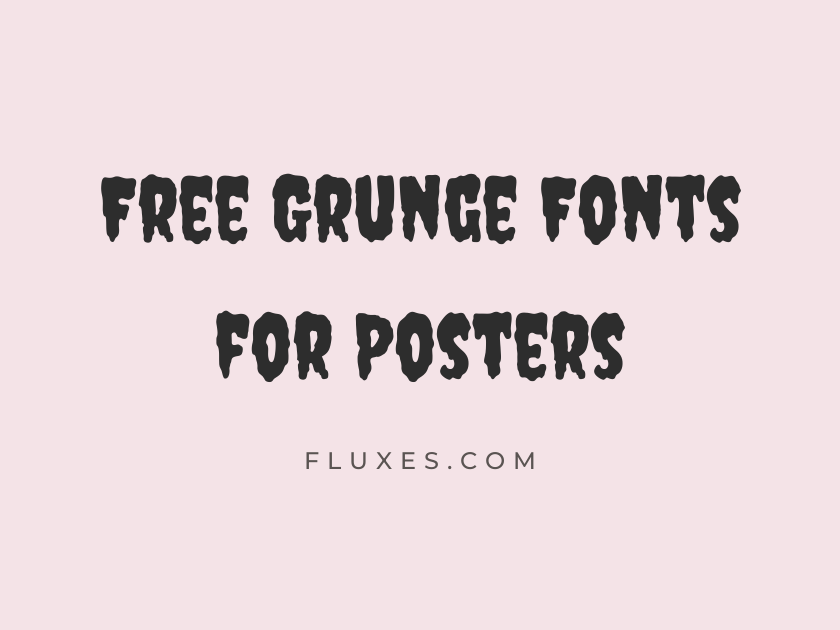
53 Best Free Grunge Fonts for Posters
Grunge fonts turn a flat poster into something that looks torn off a telephone pole, spray-painted on a loading dock, or photocopied a hundred times in a basement show flyer. That worn, chaotic, hand-abused quality is exactly what separates a poster that reads as authentic from one that looks like a template. Every typeface recommended here is free on Google Fonts, so you can drop it straight into a design tool or a WordPress site without hunting for a license, and each one brings its own flavor of distress, from horror-movie drip to spray-can grit to torn punk-zine texture.
Because “grunge” covers a lot of ground, from western wanted posters to industrial noise-band flyers to riot-grrrl zines, this roundup spans several distinct moods. Use it as a reference for matching the right kind of damage to the right kind of poster.
1. Creepster
Creepster drips like melting wax and instantly reads as horror-movie marquee lettering. It is one of the most recognizable distressed display fonts on Google Fonts, which makes it perfect for haunted house flyers, horror screenings, and anything that wants to look a little unsettling at first glance.
Keep it to a headline or two words; the dripping strokes get harder to read the longer the line gets.
2. Nosifer
Nosifer leans even further into horror territory, with jagged edges and blood-red implication baked into its shape. It works best at large poster sizes where the gnarled outlines can breathe; shrink it down and it turns into an illegible smear.
3. Butcherman
There is a hand-carved, sideshow-banner quality to Butcherman that suits carnival horror and freak-show themed events particularly well. The rough, uneven strokes feel cut rather than typed, which gives posters an old-world dread that cleaner horror fonts can’t match.
4. Eater
Eater looks chewed on, literally, with bite-shaped notches carved out of thick block letters. It’s a fun choice for zombie-themed events, midnight movie nights, or any poster that wants a cartoonish rather than truly frightening take on decay.
5. Rye
Rye channels old western wanted posters and saloon signage, with slab serifs that look stamped rather than printed. It’s a natural pick for rodeo events, whiskey bars, or any poster leaning into frontier grit.
6. Sancreek
Sancreek has the same dusty, sun-bleached western energy as Rye but with rougher, more irregular edges, as if the wood type had been left out in the weather. Pair it with a cream or tan background to sell the aged-paper effect.
7. Smokum
Smokum’s wavering, smoke-warped letterforms make it one of the more theatrical western fonts available for free. It reads best as a large display headline; the wobble in the strokes is part of the charm but can muddy small text.
8. UnifrakturMaguntia
Blackletter has a long history in punk and metal poster design, and UnifrakturMaguntia brings that gothic weight with a slightly rougher, hand-inked feel than a typical formal blackletter. It carries an air of old-world authority that reads as rebellious when slapped on a torn flyer background.
This pairs well with a plain sans-serif for supporting details, letting the blackletter headline carry all the drama.
9. UnifrakturCook
UnifrakturCook is bolder and blockier than its Maguntia sibling, with thicker strokes that hold up better at smaller sizes. It suits metal show flyers and anything wanting a gothic, almost medieval edge to its grunge.
10. Pirata One
Pirata One is a lighter, more decorative blackletter that feels closer to hand lettering than formal typesetting. It brings texture without the heaviness of a full gothic face, which makes it a good option for posters that want gothic flavor without overwhelming the composition.
11. Grenze Gotisch
Grenze Gotisch is a variable blackletter, so you can dial the weight from delicate to nearly black depending on how aggressive the poster needs to be. That range makes it unusually flexible for a gothic-styled font, useful whether the piece is a quiet literary event or a full-volume punk show.
12. Special Elite
Special Elite mimics a battered manual typewriter, complete with slightly uneven baselines and ink that looks like it’s running low. It’s an obvious match for zine culture, protest flyers, and any poster trying to look like a leaked document rather than a designed piece.
Because it reads as a body-text face as much as a display one, it’s a rare grunge option that works for longer captions too.
13. Rock Salt
Scrawled warning taped to the wall
Rock Salt looks like a marker note scrawled in a hurry, with no attempt at neatness. It suits handmade flyer aesthetics and works nicely as a scribbled aside layered over a more structured headline.
14. Permanent Marker
Marker tag scrawled across the alley wall
Permanent Marker is thicker and bolder than Rock Salt, closer to a fat felt-tip than a ballpoint, and it holds up well even at smaller sizes. It’s one of the most versatile marker-style fonts on Google Fonts, equally at home on a garage-sale sign or a DIY show poster.
15. Sedgwick Ave Display
Signed backstage, tour dates scrawled fast
Sedgwick Ave Display
Sedgwick Ave Display has a looser, more casual scrawl than Permanent Marker, closer to a signature dashed off backstage. It’s a good choice for tour date lists or any place a poster wants to feel personally signed rather than mass-printed.
16. Stardos Stencil
Property of the resistance, do not remove
Stencil lettering carries a built-in association with warning labels, crates, and military surplus, and Stardos Stencil leans into that with slightly rounded, worn-looking cutouts. It’s a strong pick for industrial or protest-themed posters that want an official, stamped-on look.
17. Wallpoet
Restricted zone, enter at your own risk
Wallpoet is narrow, stenciled, and utilitarian, evoking spray-painted shipping crates and military signage. Its tight tracking makes it ideal for vertical poster headlines where space is at a premium.
18. Bangers
Riot! Loud guitars, louder crowd tonight
Bangers is loud in every sense, a bold comic-style display font with just enough rough irregularity in its curves to avoid feeling too polished. It has become a go-to for punk, garage rock, and comic-adjacent event posters because it shouts from across the room.
It also holds up unusually well at small sizes for a display font this heavy, which is rare among grunge-leaning typefaces.
19. Frijole
Rough cut flyer for the basement show
Frijole
Frijole has a chunky, hand-carved look, like letters cut from linoleum with a dull blade. It brings folk-art texture that suits basement shows, craft fairs, and posters wanting a handmade rather than industrial kind of roughness.
20. Griffy
Weird noise band plays the warehouse
Griffy
Griffy is odd and lumpy in a way that suits experimental or noise-music posters looking for something genuinely strange rather than conventionally cool. It won’t fit every project, but where it fits, nothing else quite matches its weird charm.
21. Trade Winds
Salt worn poster from the old pier
Trade Winds
Trade Winds has a carved, weathered look reminiscent of old signage left out in salt air. It brings texture without leaning into any specific genre, making it a flexible option for vintage-flavored grunge posters.
22. Vast Shadow
Faded warning from a forgotten decade
Vast Shadow reads like a sun-faded serif pulled from an old broadside, with just enough irregularity to avoid feeling like a standard book face. It’s an understated way to bring age and wear into a poster without resorting to a fully distressed display font.
23. Londrina Sketch
Hand drawn flyer for the street fair
Londrina Sketch
Londrina Sketch looks pencil-shaded rather than solid, giving headlines a rough, hand-drawn texture. It’s especially effective on posters that want a DIY, sketched-in-a-notebook feel rather than a printed one.
24. Micro 5
Signal lost, static fills the screen
Micro 5
Micro 5 has a broken, pixelated quality that suits glitch and lo-fi digital grunge rather than paper-and-ink texture. It’s a useful option when the poster’s theme is corrupted signal or dead technology rather than physical decay.
25. Workbench
Built from scrap metal and broken glass
Workbench
Workbench looks assembled from mismatched industrial parts, part stencil, part machine-shop label. It suits posters for warehouse events, industrial music nights, or anything that wants a bolted-together, utilitarian edge.
26. Fascinate
Strange transmission from the underground scene
Fascinate mixes art deco geometry with an unsettling, slightly warped feel, which makes it stand out from more conventional grunge choices. It works well as an unexpected headline font for posters with a surreal or offbeat theme.
27. Fascinate Inline
Distorted broadcast interrupts regular programming
Fascinate Inline
The inline version hollows out Fascinate’s letterforms, adding a fractured, static-like texture that suits glitch art and experimental event posters. Use it sparingly; the intricate detail can get lost at small sizes.
28. Monofett
Heavy bass drops at the warehouse rave
Monofett
Monofett is a chunky, distressed take on a monospace font, with rounded, melted-looking edges. Its heaviness and slight irregularity make it a strong match for rave posters, warehouse party flyers, and anything wanting an industrial, bass-heavy feel.
29. Metal Mania
Live tonight, the loudest band in town
Metal Mania
Metal Mania looks pulled straight from a hand-lettered album cover, with jagged, energetic strokes built for band names and show titles. It is unapologetically genre-specific, so it earns its place mainly on rock, punk, and metal event posters.
30. Rubik Distressed
Torn poster clings to the brick wall
Rubik Distressed
Part of Google’s expanded Rubik display family, Rubik Distressed takes the geometric Rubik skeleton and roughs up its edges as if the letters had been cut from cardboard and left outside. It’s a solid all-purpose choice when a poster needs texture without tipping into a specific theme like horror or western.
• Language support: Latin, Latin Extended, Cyrillic, Cyrillic Extended, Hebrew
31. Rubik Wet Paint
Fresh paint drips across the mural
Rubik Wet Paint
Rubik Wet Paint looks exactly like its name suggests, thick and dripping as if just brushed onto a wall. It suits street art and mural-themed posters better than almost anything else on this list.
• Language support: Latin, Latin Extended, Cyrillic, Cyrillic Extended, Hebrew
32. Rubik Beastly
Feral sound erupts from the basement stage
Rubik Beastly
Rubik Beastly is spiky and aggressive, with claw-like serifs jutting off otherwise solid letterforms. It brings a feral, monstrous energy that suits metal and horror-adjacent event posters.
• Language support: Latin, Latin Extended, Cyrillic, Cyrillic Extended, Hebrew
33. Rubik Burned
Scorched flyer found in the ash pile
Rubik Burned
Rubik Burned looks charred at the edges, as though the poster itself survived a fire. It’s a niche effect but a genuinely useful one for apocalyptic, doom-themed, or protest posters about destruction.
• Language support: Latin, Latin Extended, Cyrillic, Cyrillic Extended, Hebrew
34. Rubik Dirt
Grime coats every inch of the venue
Rubik Dirt
Rubik Dirt coats its letterforms in a layer of grime and speckle, evoking a poster left in a dusty basement for years. It adds atmosphere without changing the underlying letter shapes much, so it stays legible even while looking neglected.
• Language support: Latin, Latin Extended, Cyrillic, Cyrillic Extended, Hebrew
35. Rubik Marker Hatch
Cross out the old, mark the new
Rubik Marker Hatch
Rubik Marker Hatch fills its letters with crosshatched marker strokes, giving headlines a sketched, urgent quality. It works nicely for protest posters or anything that wants to look scrawled out in a rush.
• Language support: Latin, Latin Extended, Cyrillic, Cyrillic Extended, Hebrew
36. Rubik Moonrocks
Chunky rebellion carved into the wall
Rubik Moonrocks
Rubik Moonrocks is chunky and pockmarked, like letters carved out of stone rather than drawn on paper. It suits heavier, more sculptural poster designs where the type itself becomes a textured object.
• Language support: Latin, Latin Extended, Cyrillic, Cyrillic Extended, Hebrew
37. Rubik Puddles
Rain soaked flyer stuck to the curb
Rubik Puddles
Rubik Puddles blurs and pools at the base of each letter as though soaked by rain, a fitting choice for posters meant to look weathered on the street rather than fresh off the press.
• Language support: Latin, Latin Extended, Cyrillic, Cyrillic Extended, Hebrew
38. Rubik Spray Paint
Tag the wall before the show starts
Rubik Spray Paint
Rubik Spray Paint captures the overspray and rough edges of a stencil sprayed too quickly, making it an easy shorthand for street art, skate culture, or underground music posters. It reads best large; the spray texture gets lost in small print.
• Language support: Latin, Latin Extended, Cyrillic, Cyrillic Extended, Hebrew
39. Rubik Storm
Chaos hits the stage after dark
Rubik Storm
Rubik Storm scatters its letterforms with jagged breaks and torn edges, giving headlines a sense of motion and chaos. It suits high-energy event posters that want type to feel like it’s caught mid-collapse.
• Language support: Latin, Latin Extended, Cyrillic, Cyrillic Extended, Hebrew
40. Rubik Glitch Pop
Signal breaks apart mid broadcast tonight
Rubik Glitch Pop
Rubik Glitch Pop fractures its letters into offset, corrupted-looking fragments, which suits digital and electronic music posters more than traditional paper-and-ink grunge. It brings a modern, broken-screen kind of decay to the family.
• Language support: Latin, Latin Extended, Cyrillic, Cyrillic Extended, Hebrew
41. Rubik Scribble
Scrawled setlist taped behind the amp
Rubik Scribble
Rubik Scribble fills its geometric letterforms with loose pen scribbles, landing somewhere between doodle and distressed type. It’s a playful option for posters that want texture without heaviness.
• Language support: Latin, Latin Extended, Cyrillic, Cyrillic Extended, Hebrew
42. Rubik Vinyl
Spin the record, crank the volume loud
Rubik Vinyl
Rubik Vinyl gives letters a grooved, record-like texture, an obvious but effective choice for music event posters, record store promotions, and DJ nights.
• Language support: Latin, Latin Extended, Cyrillic, Cyrillic Extended, Hebrew
43. Rubik Microbe
Decay spreads across the abandoned poster wall
Rubik Microbe
Rubik Microbe treats its letterforms like they’re being eaten away by organic growth, part mold, part biology textbook illustration. It’s an unusual pick that suits posters leaning into decay and abandonment as a visual theme.
• Language support: Latin, Latin Extended, Cyrillic, Cyrillic Extended, Hebrew
44. Rubik Pixels
Corrupted file plays the last show
Rubik Pixels
Rubik Pixels breaks each letter into a blocky, degraded grid, evoking a corrupted image file rather than physical wear. It pairs well with electronic or industrial music posters that want a digital rather than analog kind of grime.
• Language support: Latin, Latin Extended, Cyrillic, Cyrillic Extended, Hebrew
45. Kranky
Crooked letters warn of the coming storm
Kranky
Kranky wobbles and leans unevenly, giving it a slightly deranged, hand-drawn quality that suits Halloween events and spooky storytelling posters. Its irregular baseline means it should be used sparingly, ideally for a single punchy line rather than a paragraph.
46. Irish Grover
Uneven ink stamped on the show flyer
Irish Grover
Irish Grover has thick, uneven strokes that look stamped rather than typeset, with an inky roughness at the edges. It’s a solid, characterful choice for posters wanting a hand-stamped, DIY feel without going as dark as the horror fonts on this list.
47. Chelsea Market
Handmade poster taped above the register
Chelsea Market
Chelsea Market has a soft, hand-lettered warmth that reads as homemade rather than aggressive, more community bulletin board than punk flyer. It’s a good counterpoint if a poster wants a handmade feel without leaning into the darker end of grunge.
48. Nanum Brush Script
One brushstroke, one night only show
Nanum Brush Script
Nanum Brush Script brings genuine brush texture, with tapered strokes and visible bristle marks. It works well layered over a distressed background as a secondary, more expressive line of text beneath a bolder headline.
• Language support: Latin, Korean
49. East Sea Dokdo
Scrawled note pinned to the corkboard
East Sea Dokdo
East Sea Dokdo has a loose, marker-drawn look with an unpolished, personal quality, closer to a handwritten note than a designed typeface. It suits smaller supporting text on a poster that wants an informal, human touch.
• Language support: Latin, Korean
50. Miltonian Tattoo
Inked forever, tour dates on skin
Miltonian Tattoo
Miltonian Tattoo takes classic tattoo-flash lettering and roughs up its edges, making it a natural fit for band merch, tattoo shop promotions, and rockabilly event posters. The ornamental detailing means it reads best at larger display sizes.
51. Ewert
Crooked grin painted on the flyer
Ewert
Ewert has a crooked, slightly sinister grin built into its uneven strokes, sitting somewhere between playful and unsettling. It’s an underused option for Halloween, circus, or dark-comedy event posters looking for something other than the usual horror staples.
52. Astloch
Splintered wood sign nailed to the fence
Astloch
Astloch looks like letters burned or carved into rough wood, complete with knot-like gaps in the strokes. It brings a rustic, almost pagan texture that suits folk festival posters or anything wanting an earthy, weathered feel.
53. Peralta
Retro riot poster peeling off the wall
Peralta
Peralta has bouncy, irregular letterforms with a retro, hand-painted sign quality, evoking old storefronts more than modern print. Its slightly off-kilter shapes give posters a lived-in, peeling-paint charm without needing a heavy distress effect layered on top.
Using free grunge fonts on a poster
Restraint matters even with rough typefaces. One heavily distressed display font for the headline, paired with a plain sans-serif or a typewriter face like Special Elite for details, usually reads better than stacking several textured fonts together.
Size affects legibility more with grunge fonts than with clean ones. Test any heavily textured choice at the smallest size it will actually appear, since drips, cracks, and spray edges can turn to mud in a thumbnail or a social share image.
Background texture does a lot of the work too. A grunge font on a flat white background can look like a mismatch; adding paper grain, torn edges, or a faded color wash usually sells the effect far more convincingly.
Finally, match the flavor of distress to the event. Horror drips suit haunted houses, spray paint suits street culture, and worn typewriter type suits protest or zine-style messaging; mixing genres of grunge on one poster can undercut the mood you’re going for.
With this many free, genuinely distinct textures available on Google Fonts, there is rarely a reason to fall back on a paid distressed font. Download a few, test them against your actual poster background, and let the texture do the storytelling.